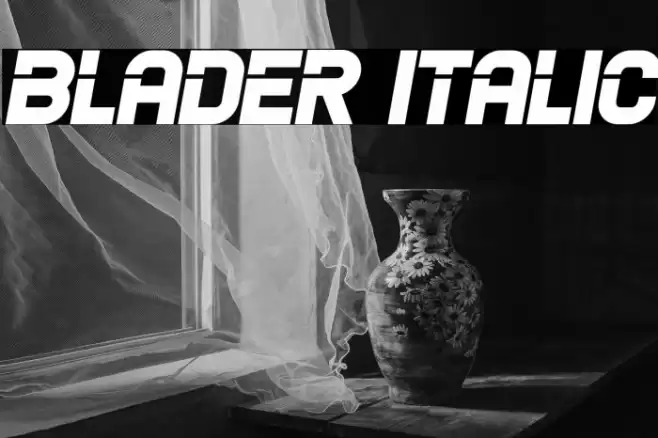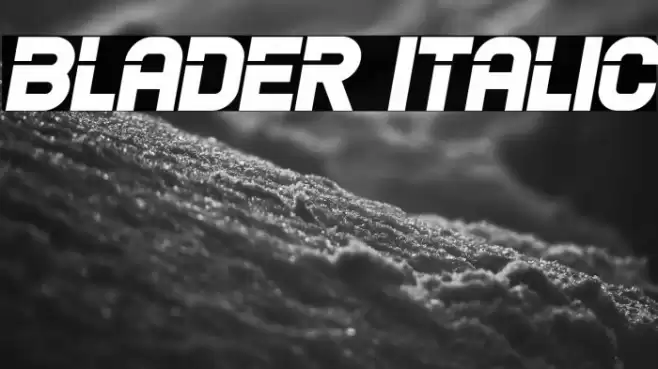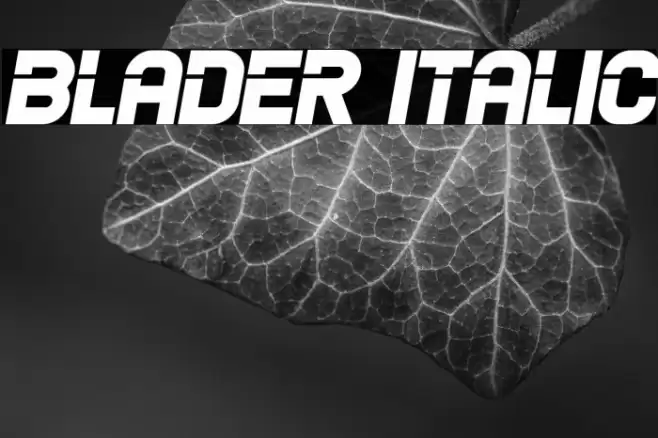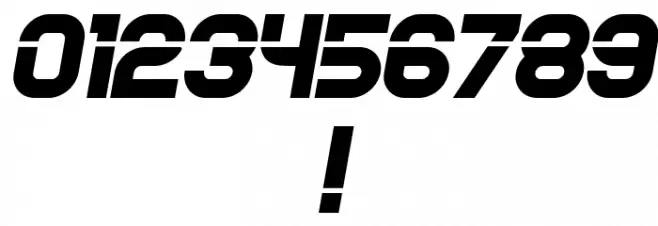
Blader Italic Font
Blader Italic Description
This font features a bold and dynamic italic style, characterized by its strong geometric shapes and sharp angles. The letters are slightly slanted, giving a sense of motion and energy. The strokes are thick and consistent, providing a robust and impactful appearance. The overall design is modern and sleek, suitable for making a statement. The numbers and special characters maintain the same boldness and angularity, ensuring uniformity across all glyphs. This font is ideal for projects that require a futuristic or sporty aesthetic.
A bold, dynamic italic font with geometric shapes and sharp angles from Uncategorized fonts.